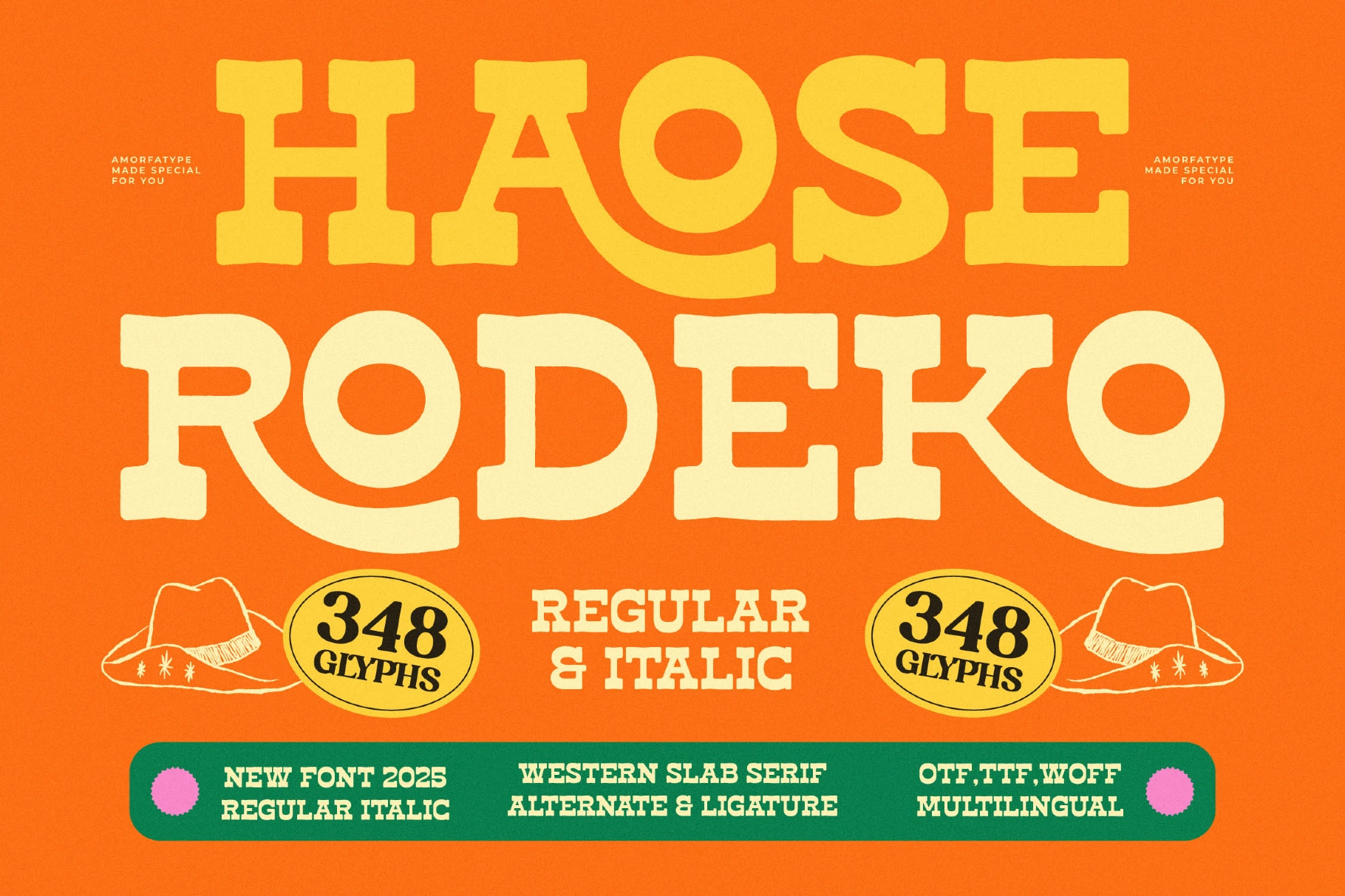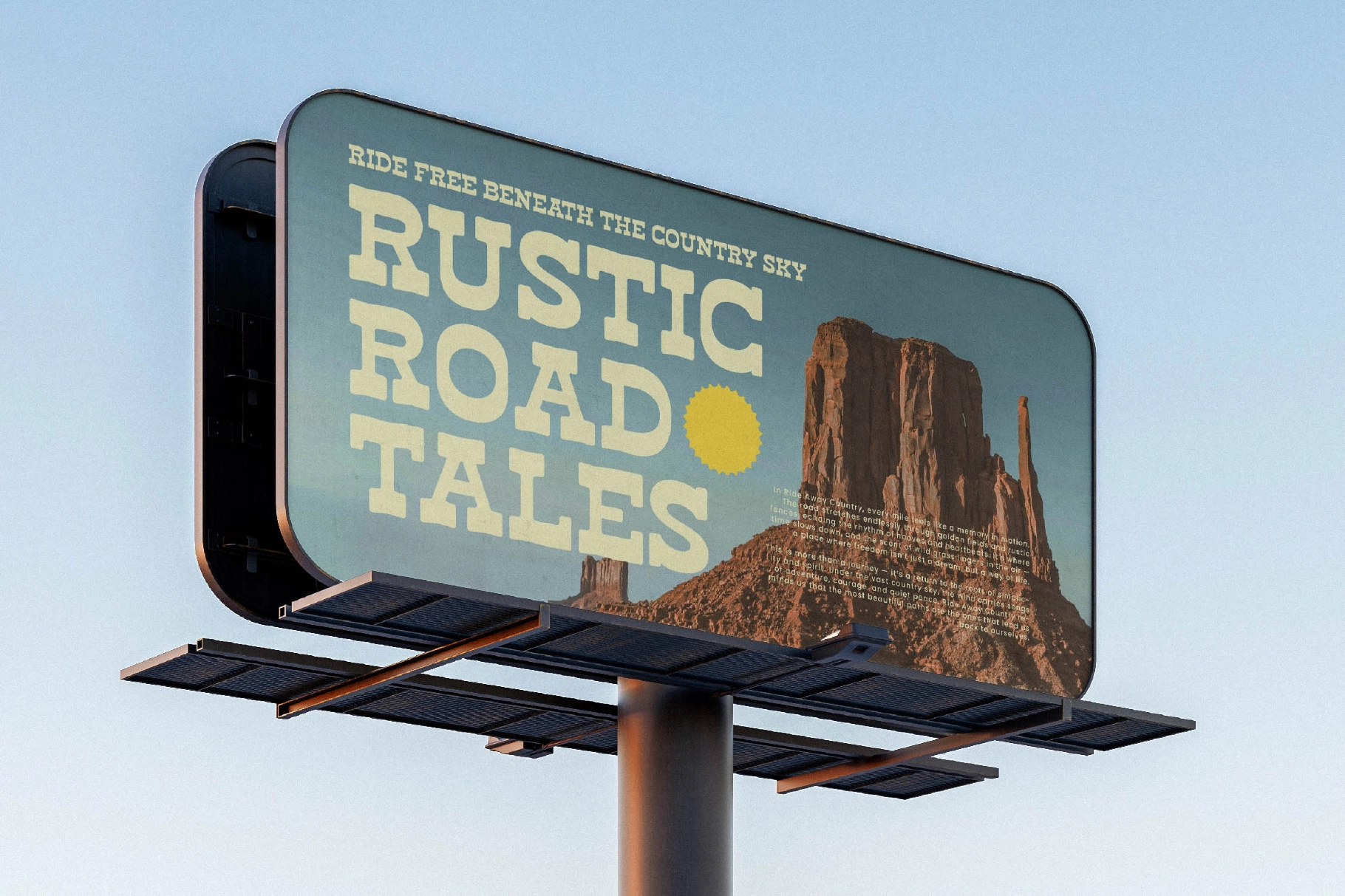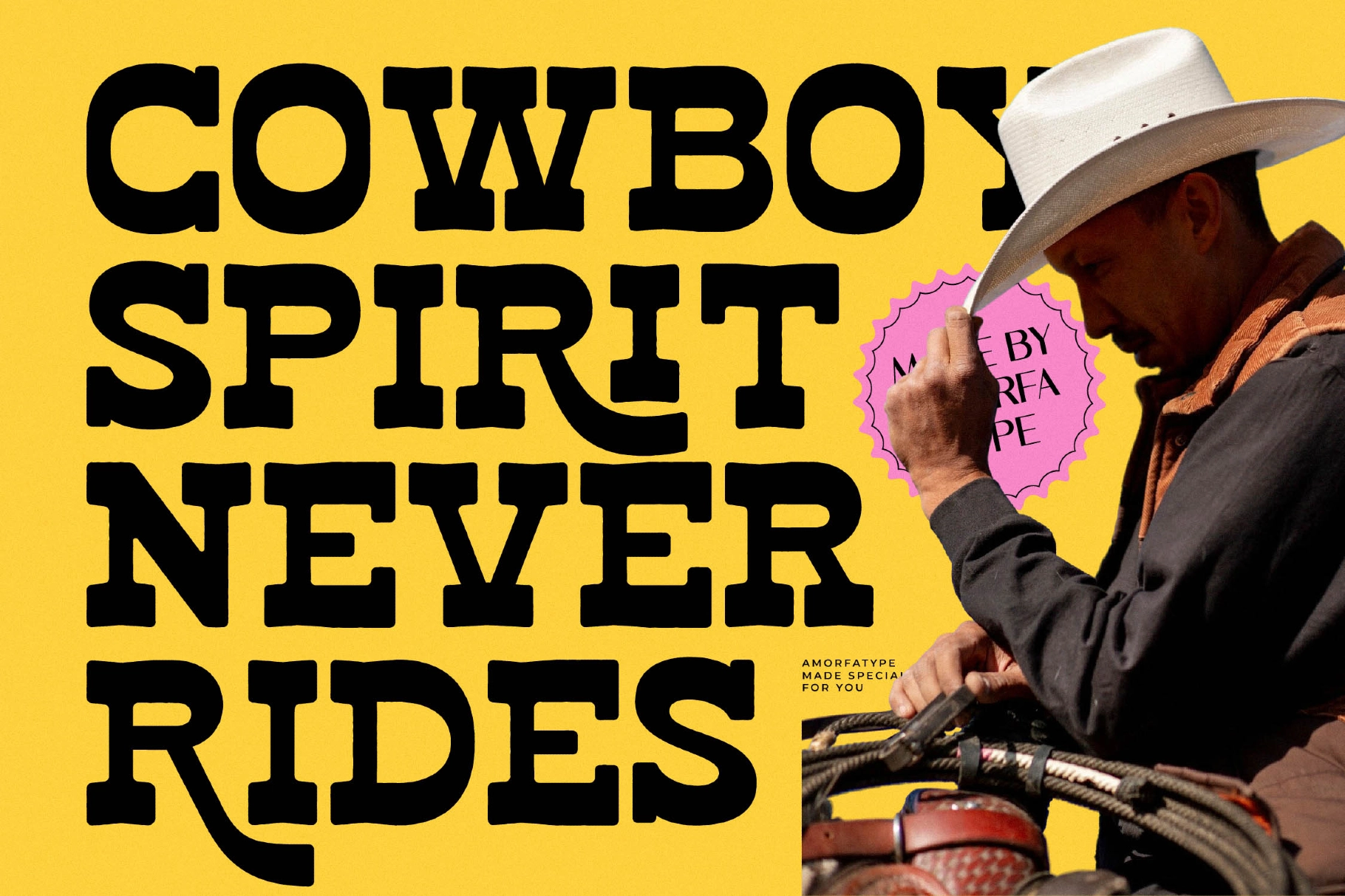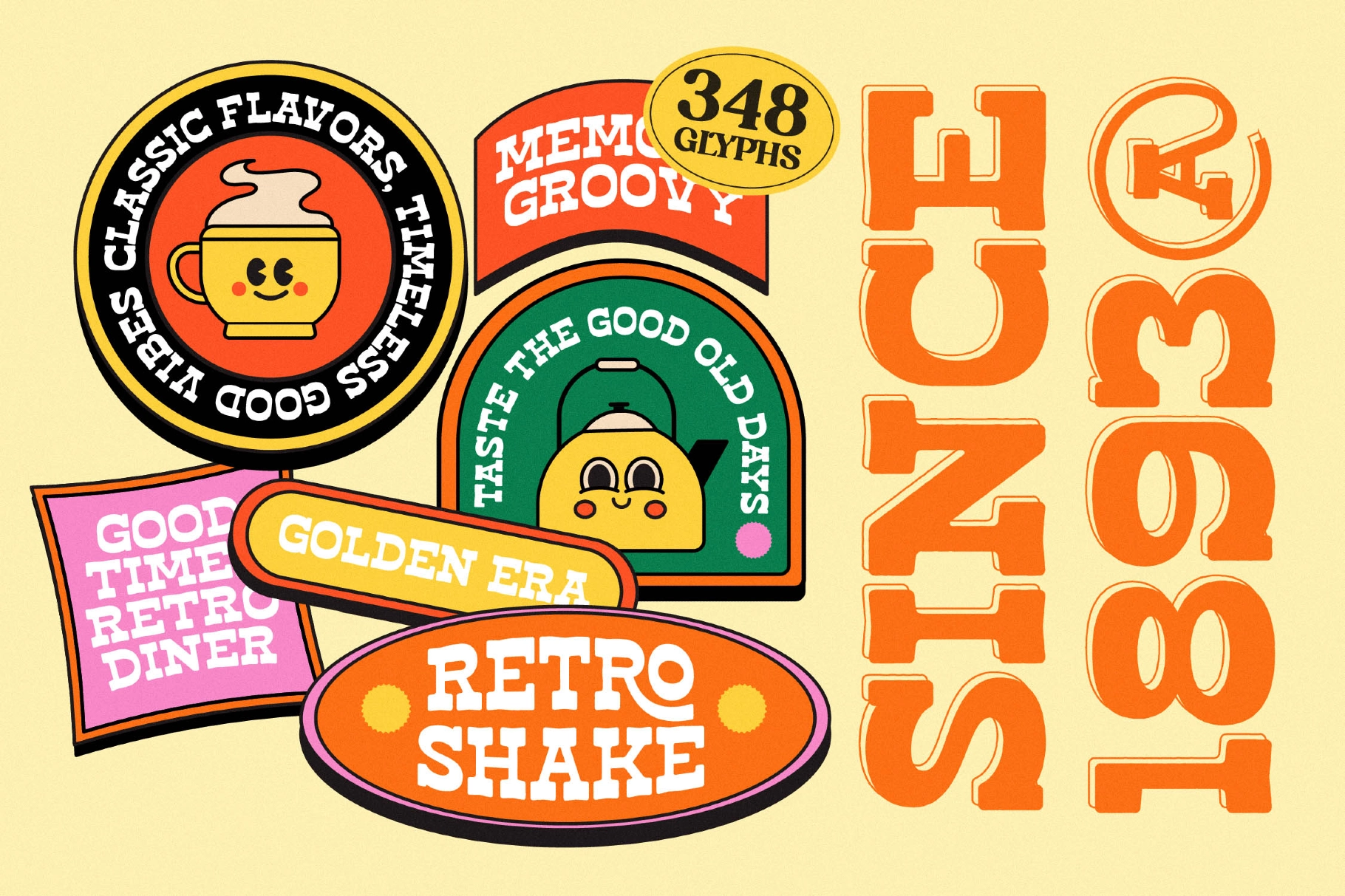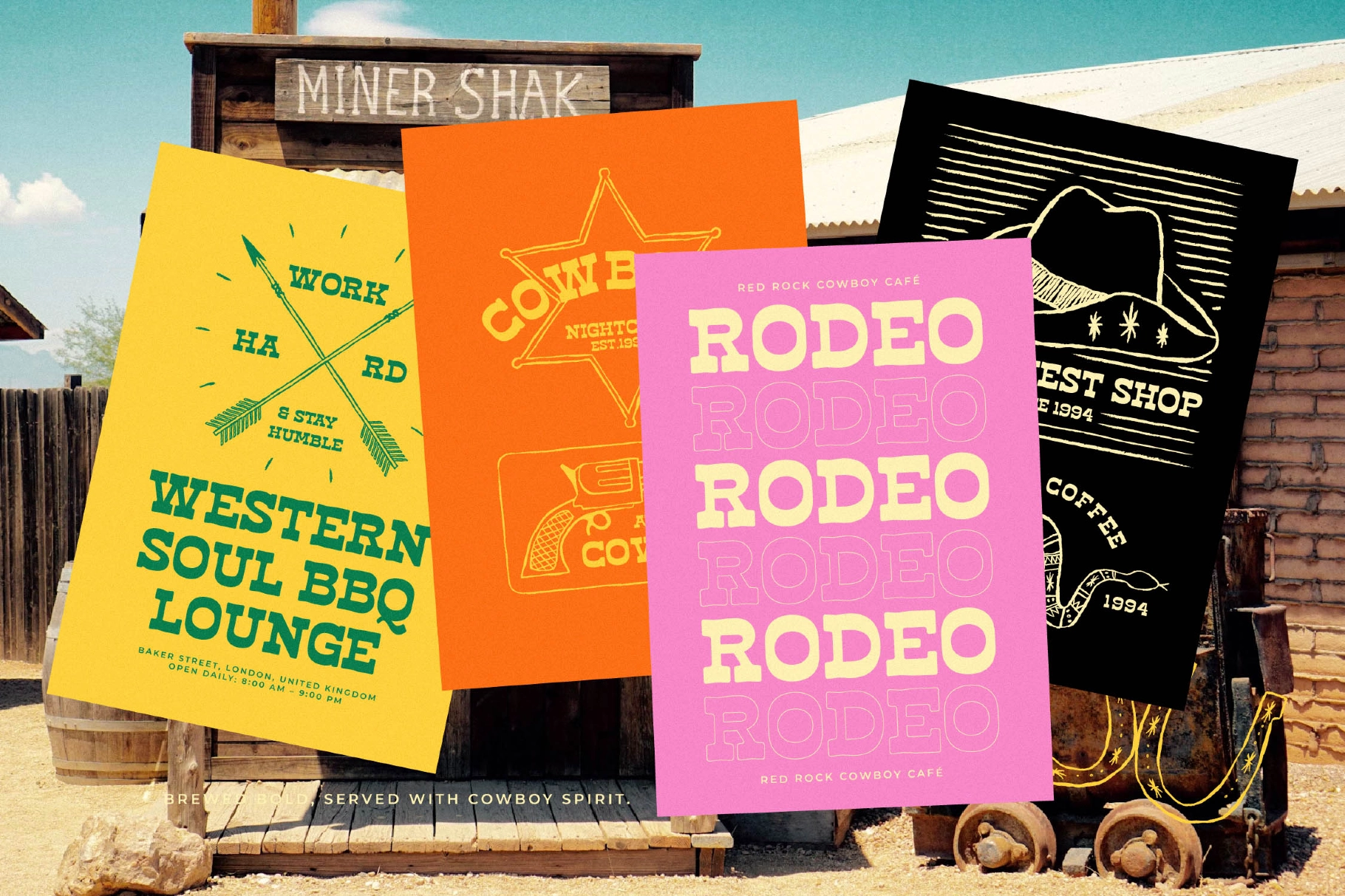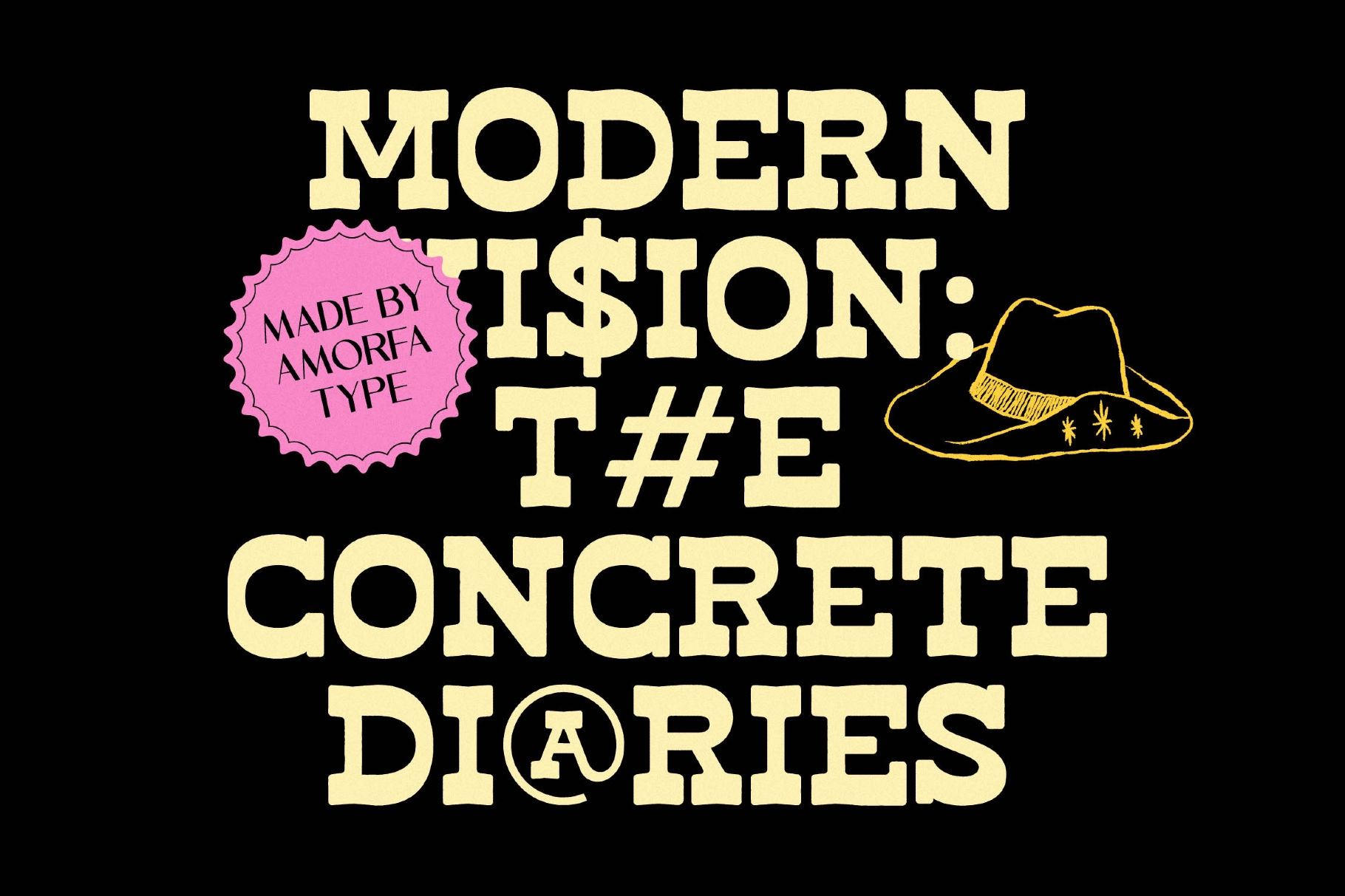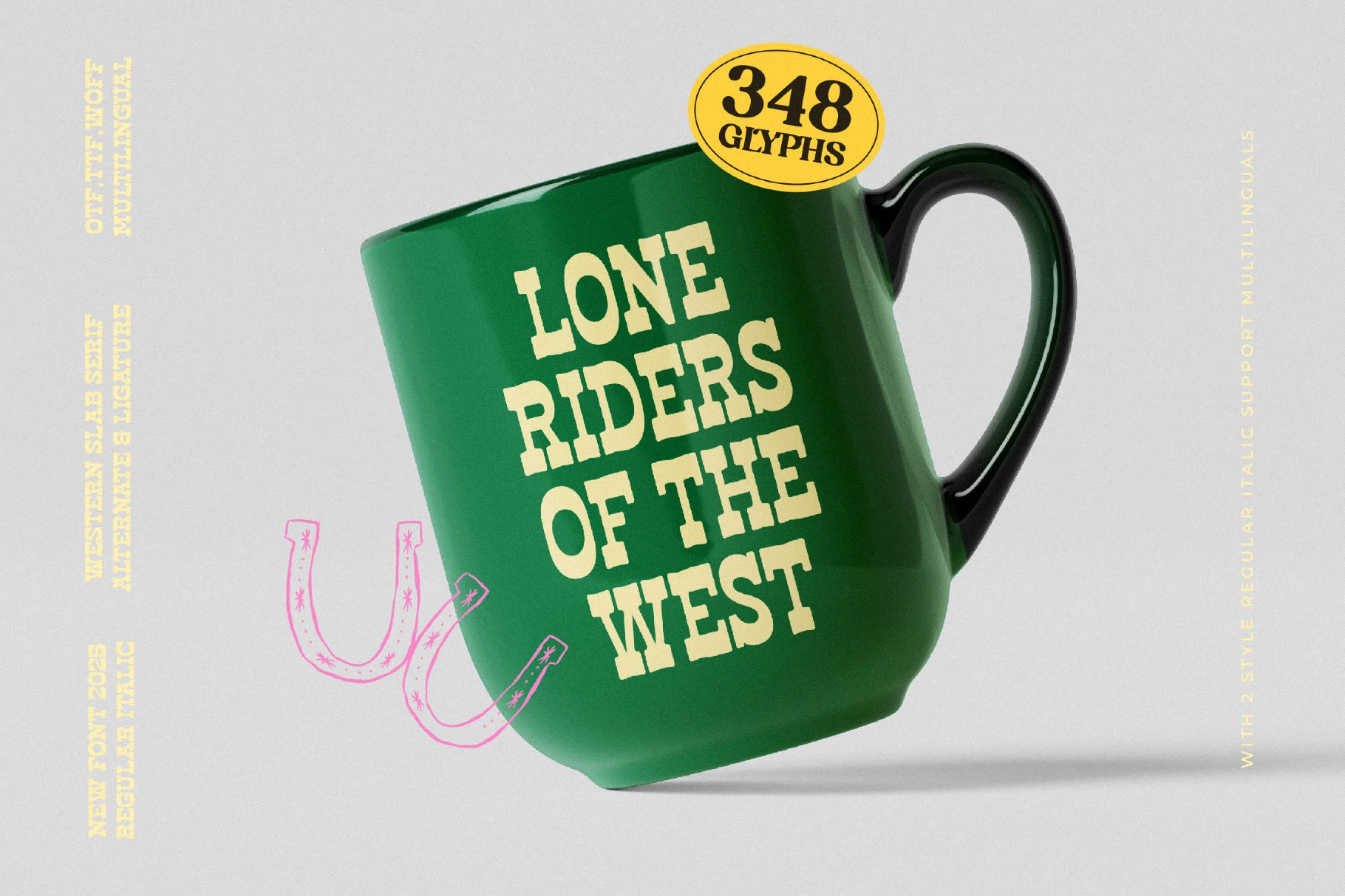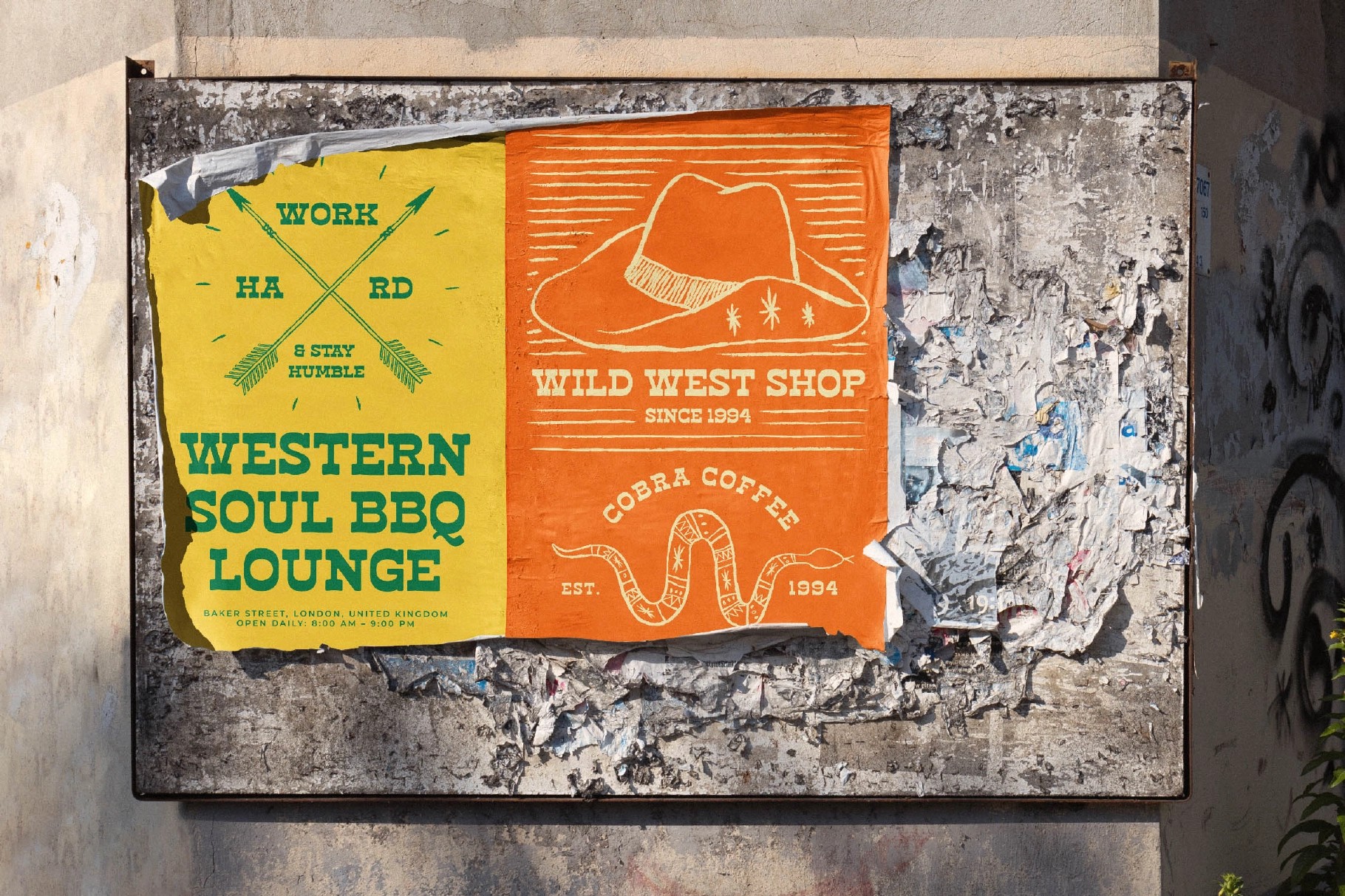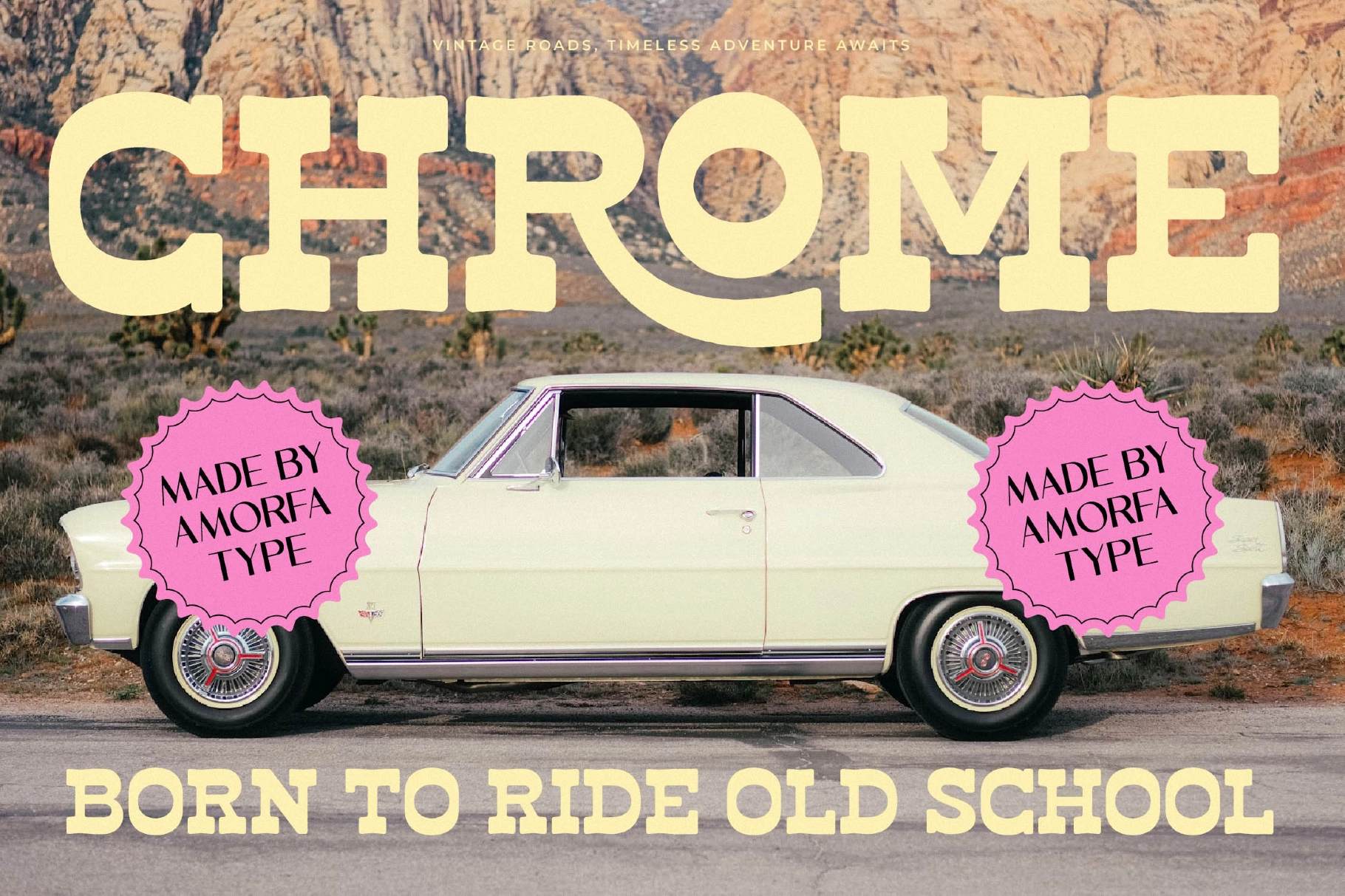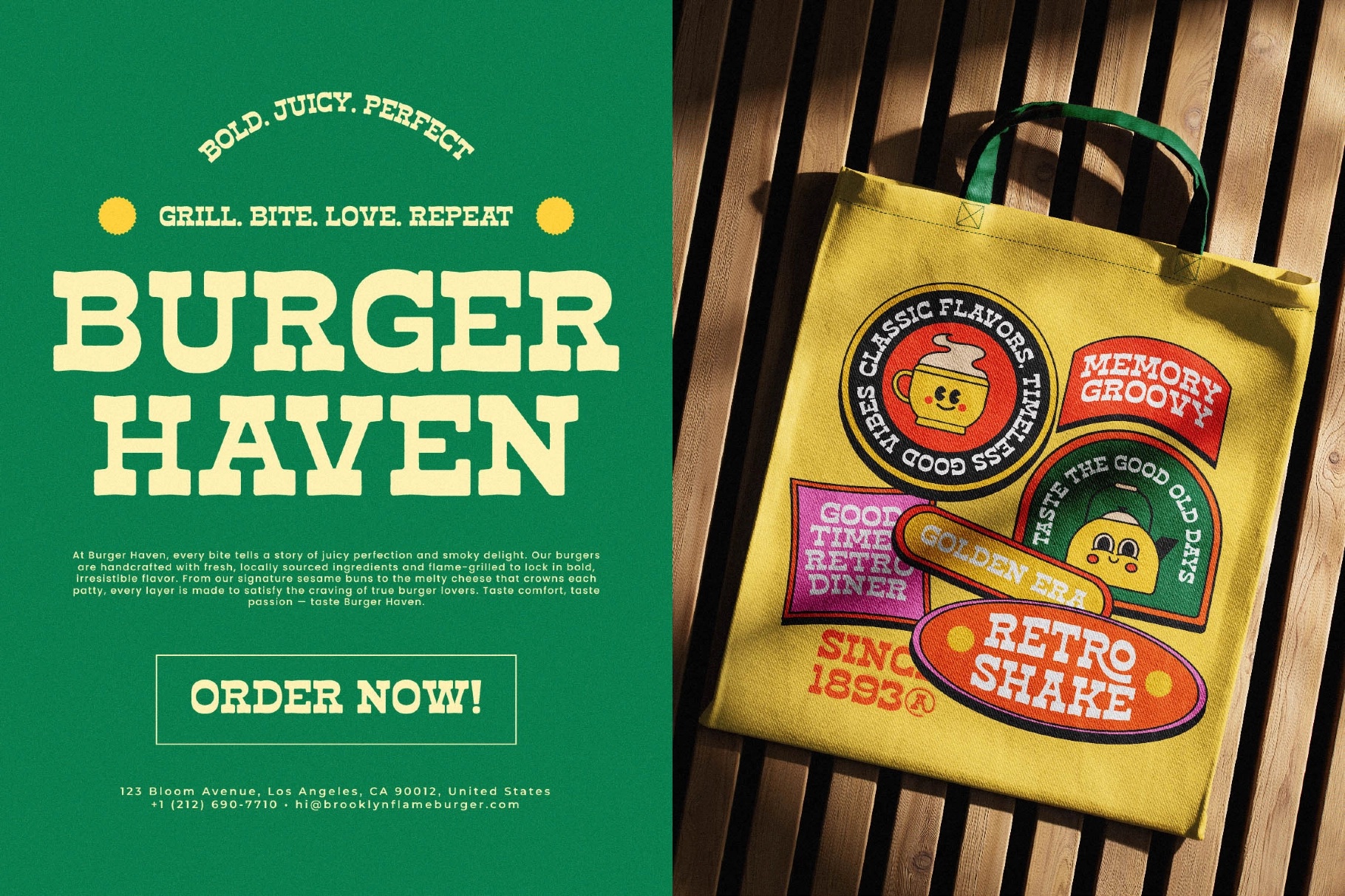
Haose Rodeko - Western Slab Serif Font
This western slab serif is bold, chunky, and proudly unpolished in all the right places. Heavy bracketed serifs, rounded cuts, and uneven vintage shapes give each letter a rugged storefront character without losing readability.
Haose Rodeko works well for saloon-style logos, diner badges, coffee packaging, rodeo posters, heritage labels, brewery branding, apparel graphics, editorial headlines, stickers, signage, album covers, social media quotes, and more. The regular and italic styles give designers room to switch between sturdy headline type and a slightly sharper display voice.